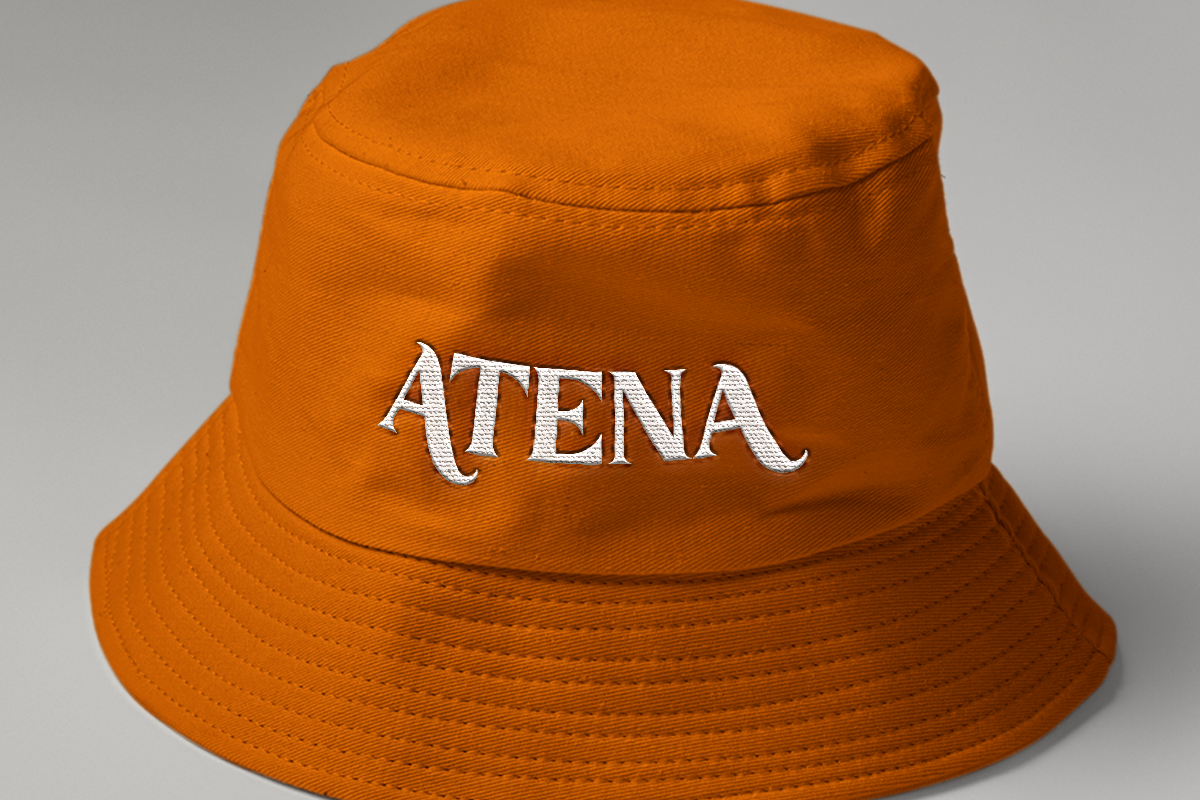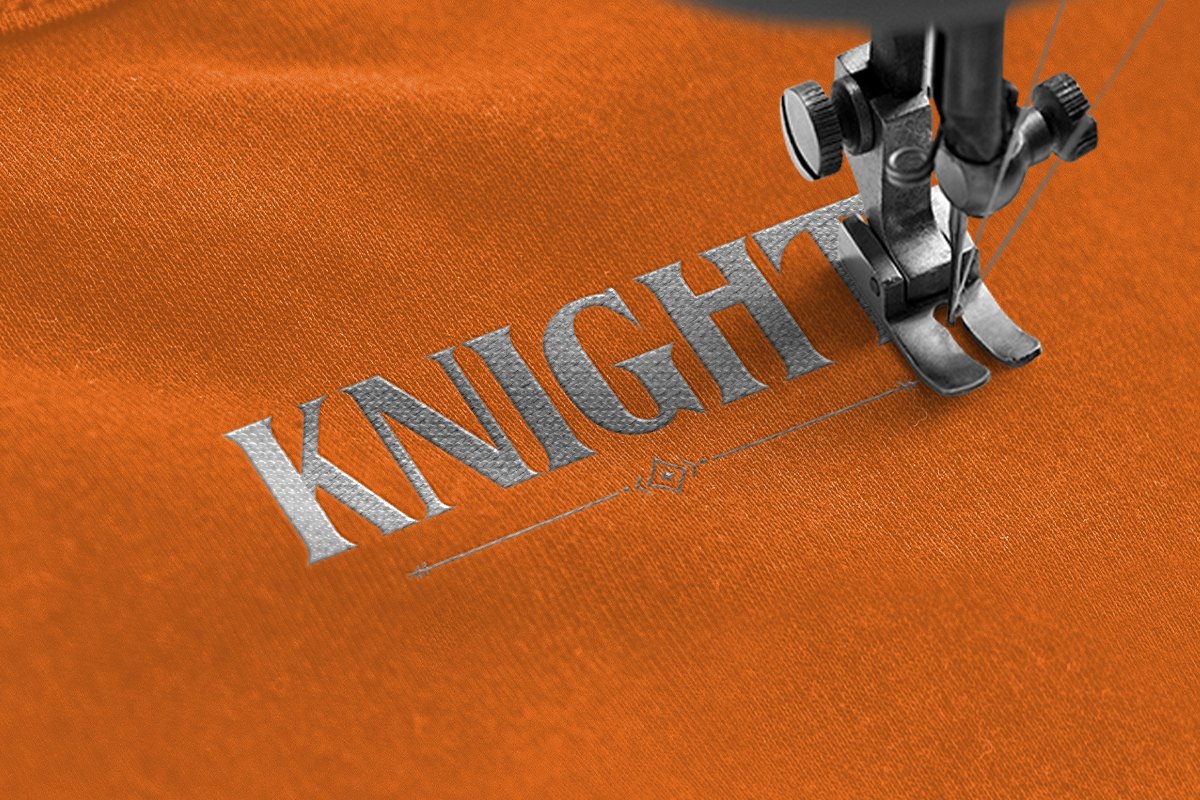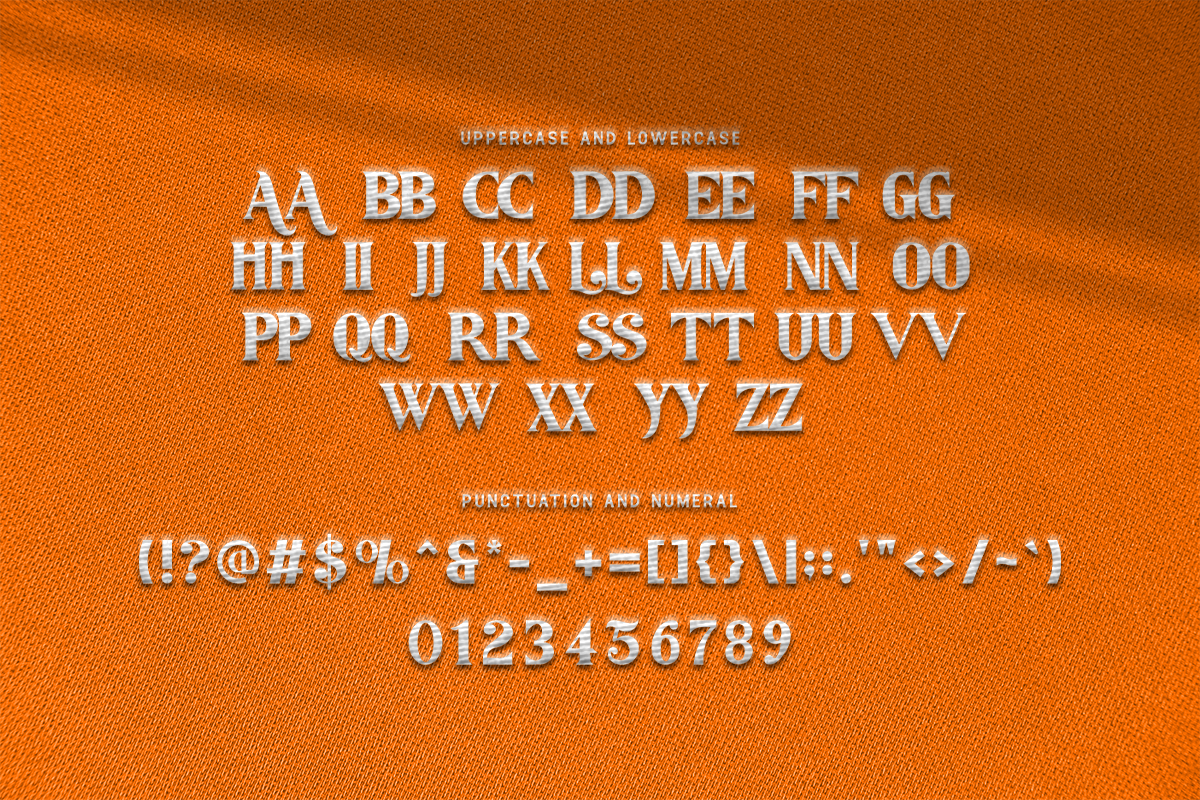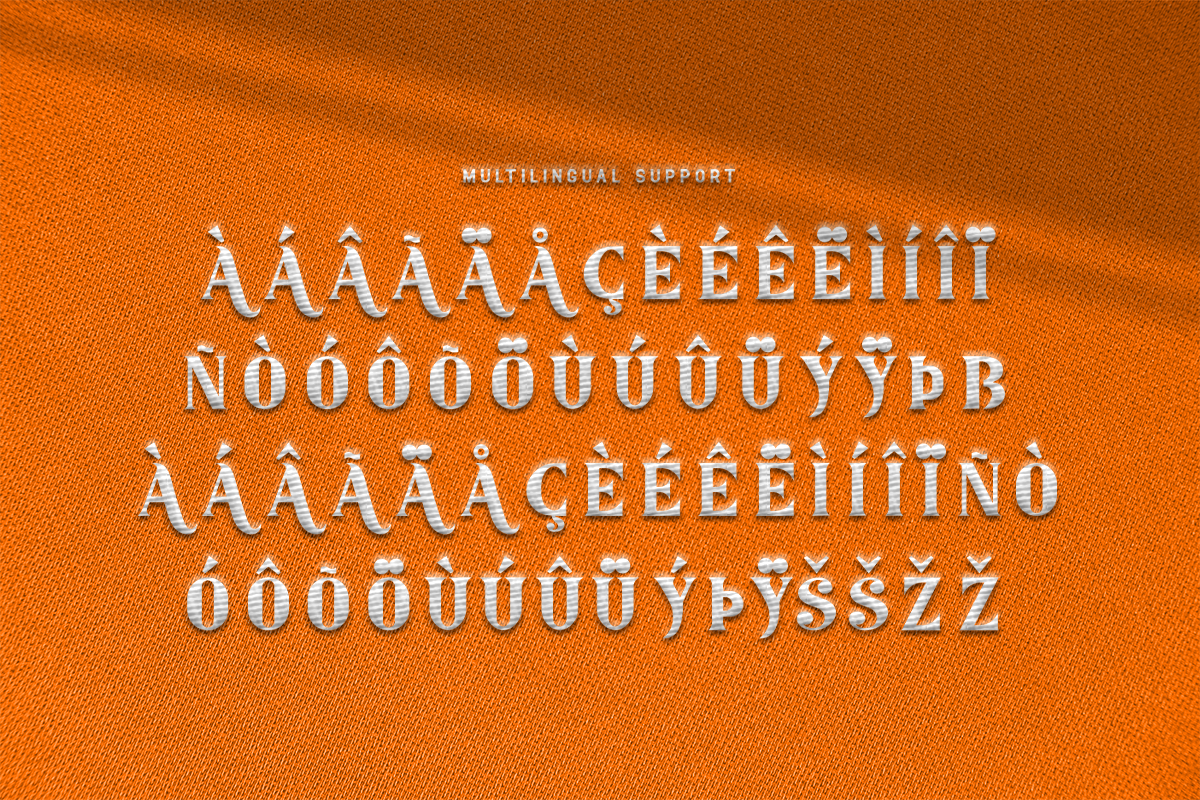
Lemonta Embroidery Serif Font is a new creation that comes with a great style and is made with a longer additional curvature variation than usual. This font is one of the fonts that give you options for people who are interested in using an embroidery font. Lemonta Embroidery Serif Font has the characteristic that there is no exaggeration in each letter form. This font has a normal shape like the original letter. From the style, this font is legible. This font will be seen as clean when used with a large font size.
Lemonta Embroidery Serif Font has high usability when used for branding a product. This font can be used for advertising posters, brand tags, and shop signs. This font can create a modern and simple impression of the product combined. This font can be used for t-shirts, hats, and others.